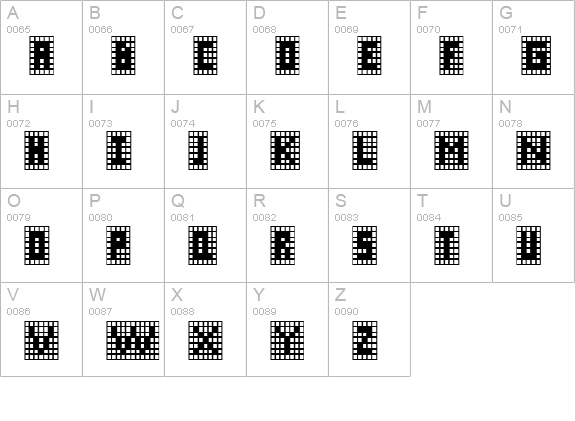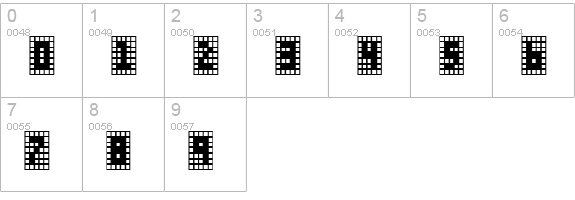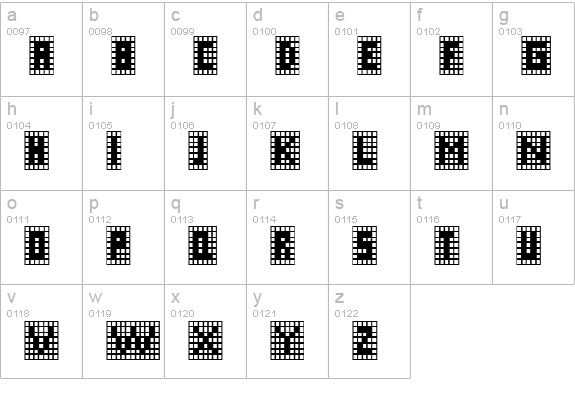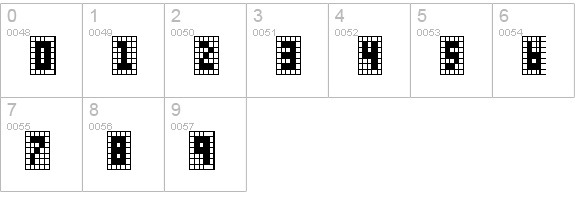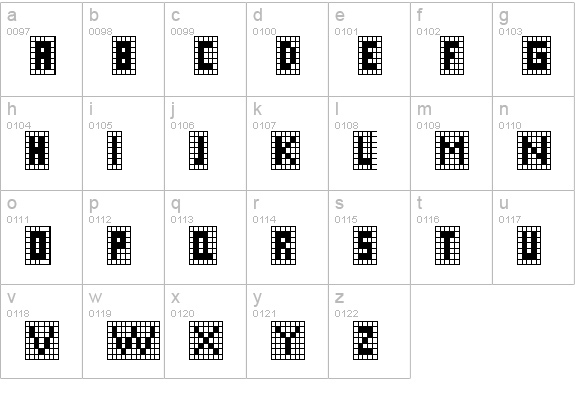
X-Grid Font Details
Introducing X-Grid font, a sleek and modern typeface perfect for all your design needs. This versatile font features a unique grid-like structure that sets it apart from traditional fonts, making it ideal for projects that require a contemporary and edgy aesthetic. With its clean lines and sharp angles, X-Grid font exudes a sense of sophistication and creativity. What's even better is that X-Grid font is available for free download at FontsMarket.com! Now you can add this striking font to your collection without breaking the bank. Whether you're working on branding, advertising, or any other creative project, X-Grid font will elevate your designs to the next level. Don't miss out on this fantastic opportunity to enhance your work with this exceptional font. Download X-Grid font today and unleash your creativity like never before!